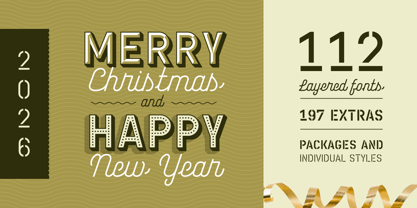
Chamelton
por Hypnotic Type
La familia tipográfica Chamelton fue diseñada por Alex Khoroshok y publicada por Hypnotic Type. Chamelton contiene 113 estilos y opciones de paquete familiar.
Chamelton, a vast layered font family, provides a creative spectrum through layers, colors, and weights, including 109 Sans Serifs, 3 script weights, + 198 extras.
You can use the family as a complete design kit or a component of your work. Most styles are stand-alone fonts, but some layers work only in combination.
Creating a multi-colored layered font is simple and compatible with any layer-supporting graphic software, including Adobe Suite, Sketch, Figma, etc.